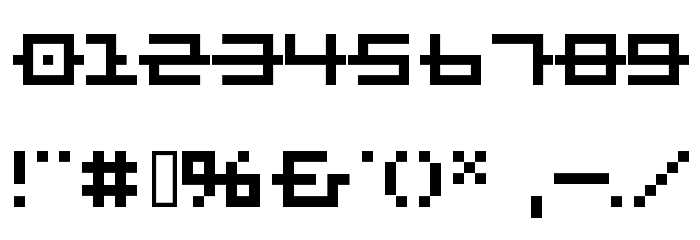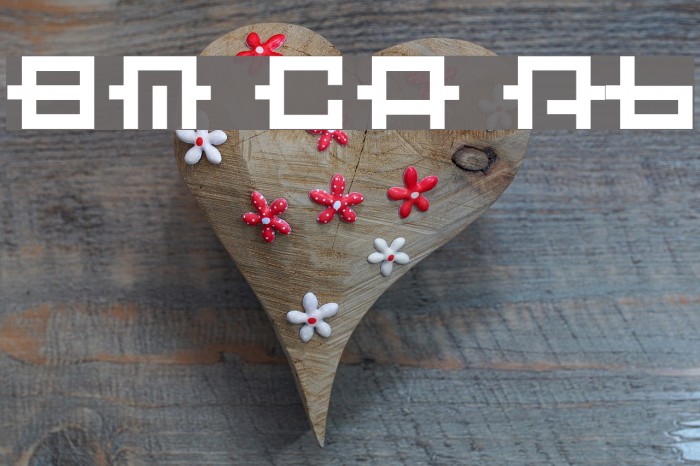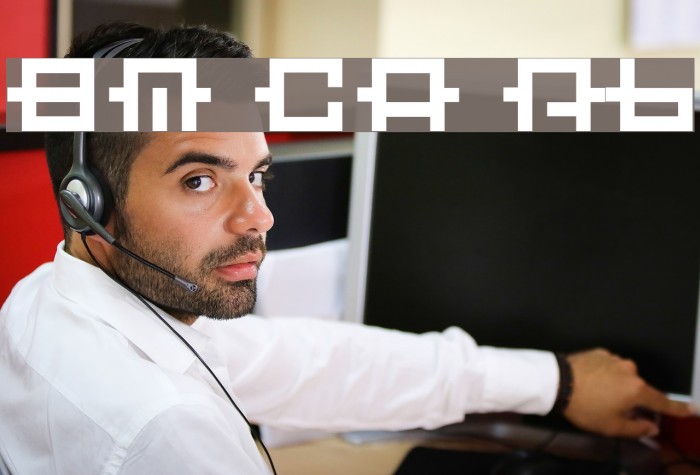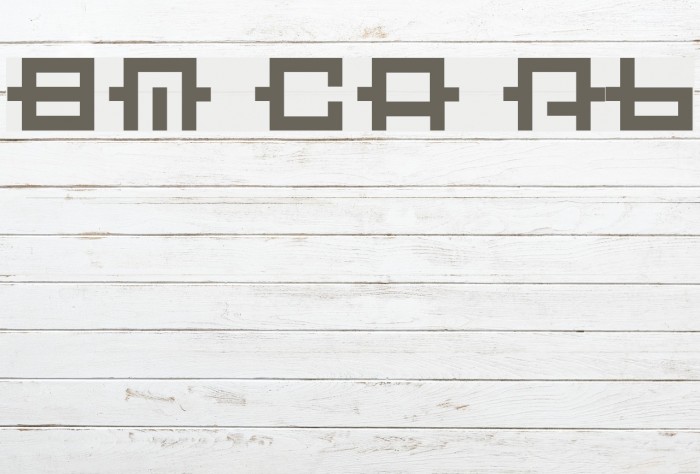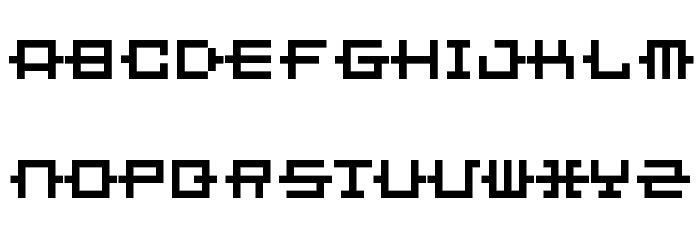
BM chain A6 Font
This font features a distinct, blocky design with a pixelated appearance reminiscent of early digital or video game typography. Each character is constructed with sharp, angular edges and uniform stroke widths, creating a cohesive and structured look. The uppercase and lowercase letters maintain a consistent height, contributing to a monospaced feel. Numbers and special characters follow the same geometric style, ensuring visual harmony across all elements. The font's design is both retro and futuristic, making it suitable for projects that require a digital or tech-inspired aesthetic.
A pixelated, blocky font with a retro digital style.
• Proposed Projects: Ideal for video game design, tech branding, digital art projects, and retro-themed graphics.
• Category: Monospaced
• Overall Style: Retro, Digital
• Use Case: Logos, Headlines, Digital interfaces